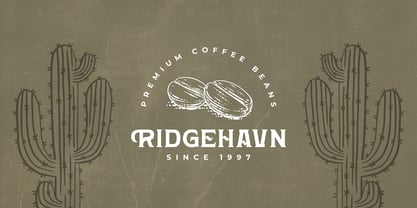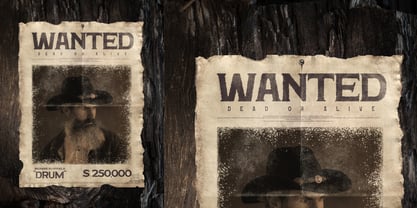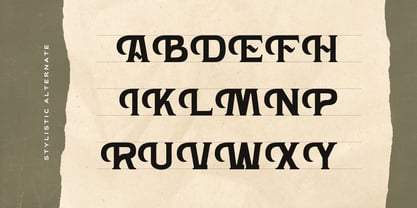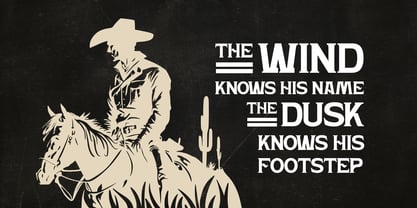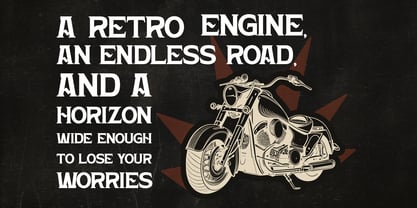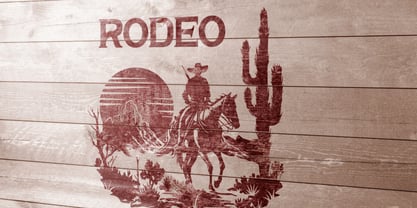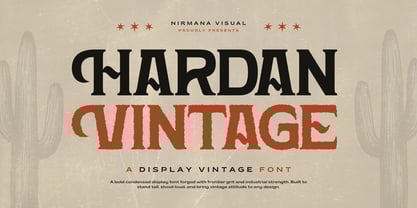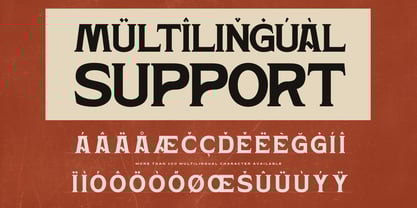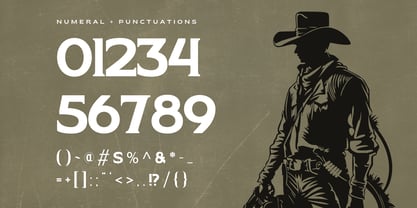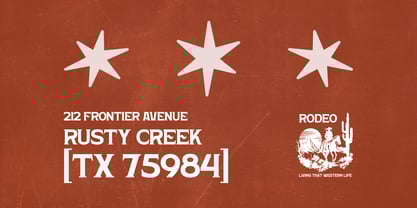
Hardan Vintage
by Nirmana Visual
The Hardan Vintage Font Family was designed by Sigit Dwipa and published by Nirmana Visual. Hardan Vintage contains 2 styles and family package options. More about this family
Hardan Vintage is a timeless classic font crafted with an authentic retro spirit. Available in Regular and Rough styles, it brings bold character and handcrafted charm to every design. Perfect for logos, branding, packaging, and label sign branding, Hardan Vintage delivers a nostalgic look with strong visual impact—ideal for projects that need heritage style and vintage authenticity.